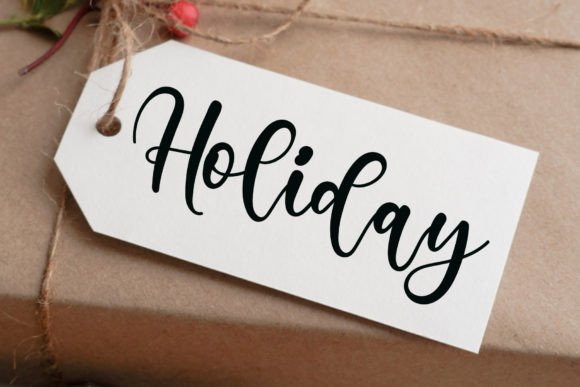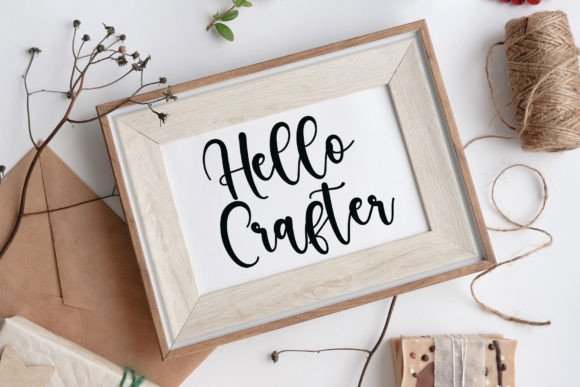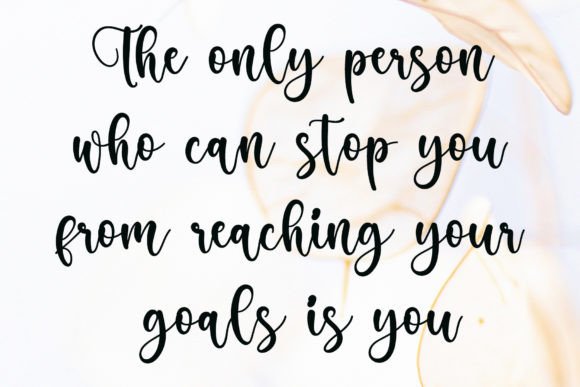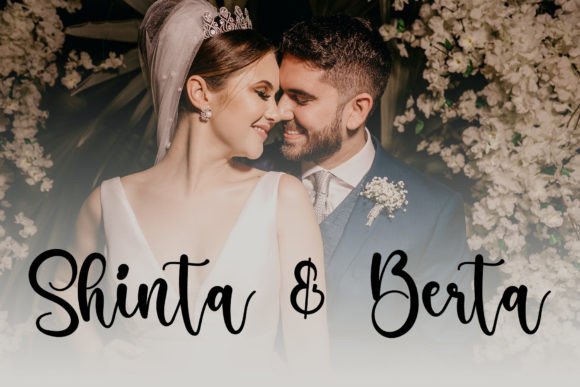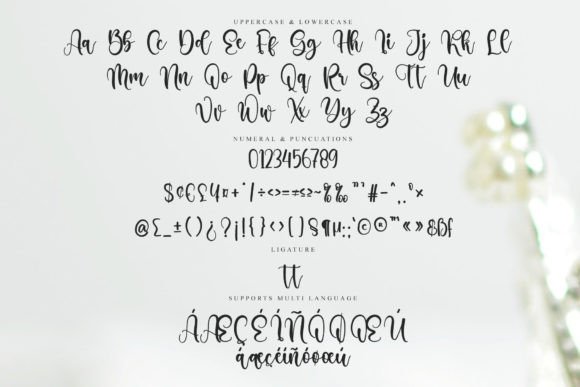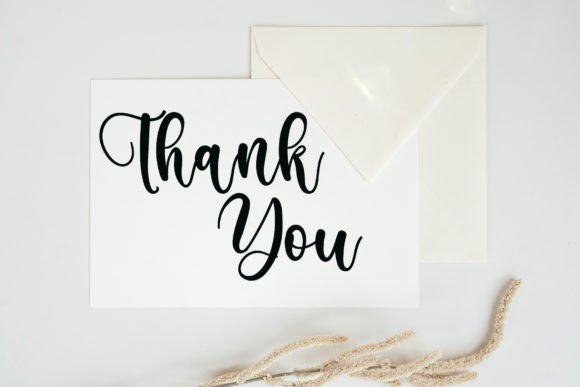
Introduction to Rodent Font
As designers, we’ve all been there – staring at a blank canvas, waiting for the perfect spark to ignite our next creative project. And then, it happens. A chance discovery of a stunning font can elevate our work from ordinary to extraordinary. For me, that moment came when I stumbled upon the Rodent Font – a stylish and modern handwritten font that has been a game-changer in my design journey.
With its unique blend of elegance and playfulness, the Rodent Font is the perfect addition to any design project. Whether you’re crafting a greeting card, designing a logo, or creating packaging, this font is sure to bring a touch of happiness and whimsy to your work. And the best part? It’s available for free download, making it an invaluable resource for designers of all levels.
Key Features of Rodent Font
- High-quality design with detailed illustrations, ideal for creative projects and design resources.
- Transparent background, allowing for easy customization and flexibility in design.
- Large size (1000 x 1000 pixels) and high resolution (300 DPI) ensure crisp and clear visuals.
- Unique rodent characters with distinct personalities, adding a touch of whimsy and playfulness to designs.
- Perfect for use in digital art, graphic design, and print materials, such as stickers, posters, and cards.
Honest Review: Rodent Font
I recently had the chance to work with Rodent Font on a creative project and I must say it’s been a pleasant experience. The font is a great addition to any design resource library and offers a lot of possibilities for those looking for a unique, high quality font.
- ✨ High quality design that is sure to stand out in any creative project.
- ✨ Transparent background, making it easy to work with and combine with other design elements.
- ⚠️ Limited customization options, which may not be ideal for designers who like to fine-tune their fonts.
- ⚠️ Not ideal for body text, as it’s a bit too ornate and may be difficult to read in large quantities.
Overall, I’m impressed with Rodent Font and would recommend it to anyone looking for a unique and high quality font for their creative project. Just be aware of its limitations and use it wisely.
Tips for Getting the Most Out of Rodent Font
To maximize the potential of Rodent Font, use it in conjunction with other design elements, such as images and graphics. This will help you create a visually appealing and cohesive design. Additionally, experiment with different font sizes and styles to achieve the desired effect.
Rodent Font is suitable for a variety of creative projects, including graphic design, digital art, and even web design. Its high quality and transparent background make it an ideal choice for designers looking for a versatile and effective design resource.
Alternatives to Rodent Font
Open Sans is a free, high-quality font that’s perfect for creative projects. It’s highly legible and comes in a variety of weights and styles. When to use: For body text, headings, and titles where you need a clean and modern look. How it compares to Rodent Font: While Open Sans is more versatile and widely used, it lacks the unique, quirky feel of Rodent Font.
Great Vibes is a fun, cursive font that’s ideal for creative projects with a touch of elegance. It’s available for free download and features a transparent background, making it perfect for digital designs. When to use: For titles, headings, and quotes where you want to add a touch of whimsy and personality. How it compares to Rodent Font: Great Vibes has a more flowing, handwritten feel compared to the blocky, rodent-inspired design of Rodent Font.
Lato is a modern sans-serif font that’s highly customizable and suitable for a wide range of creative projects. It’s available for free download and comes with a transparent background, making it easy to use in digital designs. When to use: For body text, headings, and titles where you need a clean, modern look with a touch of sophistication. How it compares to Rodent Font: Lato is more straightforward and less quirky compared to Rodent Font, but it’s a great choice for projects where you want a professional look.
To apply a transparent background to the Rodent Font, designers can use the SVG file format, which supports transparent backgrounds. Simply use a vector graphics editor like Adobe Illustrator to import the SVG file and adjust the background settings as needed.